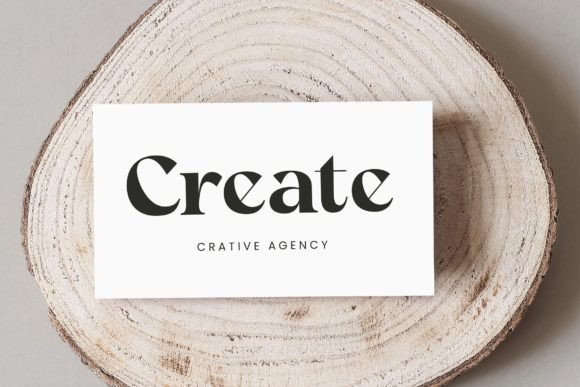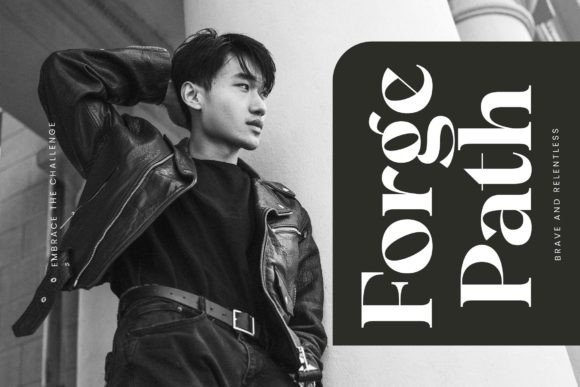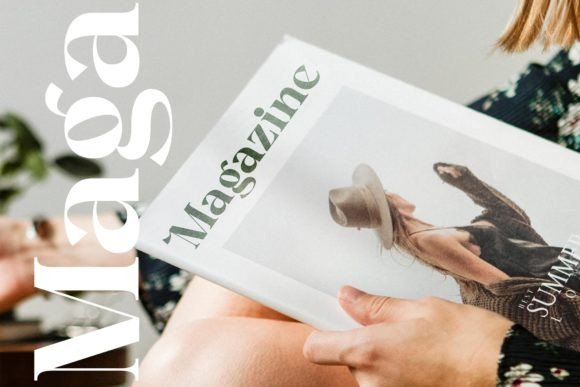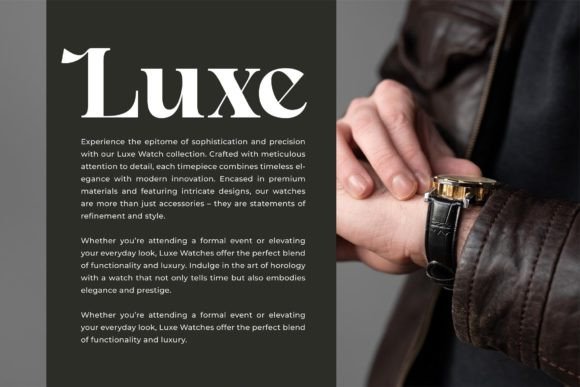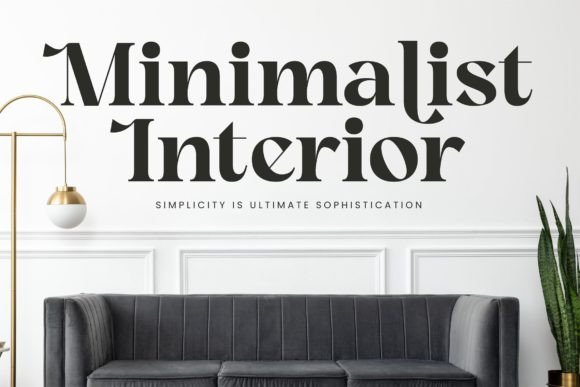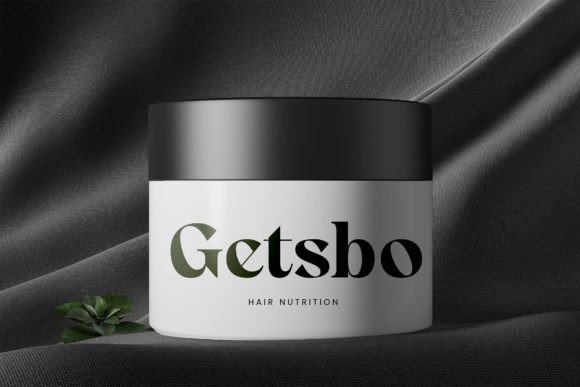
Introducing Angfia Relaftio: The Epitome of Luxury Serif Fonts
In the realm of typography, a font can make or break the aesthetic appeal of a design project. For designers and crafters seeking to infuse their creations with a touch of luxury and sophistication, the Angfia Relaftio font from Letterena is an exceptional choice. This modern serif font is meticulously crafted to elevate a wide array of projects, including logos, branding initiatives, homeware designs, product packaging, and much more.
Unveiling Angfia Relaftio
Angfia Relaftio is not just any serif font; it’s a statement of elegance and refinement. Its design embodies the perfect blend of traditional serif elements with a modern twist, making it versatile for various applications. Whether you’re working on a high-end branding project, a sophisticated product package, or an artistic poster, Angfia Relaftio brings a level of luxury that is hard to match.
One of the standout features of Angfia Relaftio is its incredible versatility. This font is suitable for a myriad of projects, including:
- Logos and Branding Projects: Establish your brand’s identity with a sophisticated and luxurious feel.
- Homeware Designs: Add a touch of elegance to your home decor products with a font that exudes luxury.
- Product Packaging: Elevate your product’s presentation with a font that communicates high quality and sophistication.
- Mugs, Quotes, Posters: Transform everyday items and promotional materials into stunning pieces of art.
- Shopping Bags, T-shirts, Book Covers: Create visually appealing merchandise that stands out.
- Name Cards, Invitation Cards, Greeting Cards: Make your cards and invitations special with a luxurious touch.
- Labels, Photography, Watermarks: Use Angfia Relaftio to add a professional and elegant finish to your work.
- Special Events: Make your event memorable with luxurious stationery and promotional materials.
Why Choose Angfia Relaftio?
Choosing Angfia Relaftio for your design project comes with numerous benefits:
- Elegance: The font’s luxurious feel adds an unparalleled level of sophistication to any project.
- Versatility: Its wide range of applications makes it a valuable asset for designers and crafters.
- Readability: Despite its luxurious and intricate design, Angfia Relaftio maintains excellent readability, making it suitable for both headlines and body text.
- Uniqueness: Stand out from the crowd with a font that is both distinctive and memorable.
Tips for Using Angfia Relaftio
To maximize the potential of Angfia Relaftio, consider the following tips:
- Pair with Simplicity: Let the font be the focal point by pairing it with simpler design elements.
- Experiment with Sizes: Play with different sizes to create visual hierarchy and emphasize key messages.
- Color Matters: Choose colors that complement the luxurious feel of the font, such as metallic tones, deep blacks, or rich colors.
Angfia Relaftio – Modern Serif Font from Letterena is more than just a typeface; it’s a design statement. Its luxurious feel, versatility, and elegance make it an indispensable tool for designers and crafters aiming to create high-end projects. Whether you’re working on a branding project, product packaging, or any other design endeavor, Angfia Relaftio is poised to elevate your work to new heights of sophistication and style.